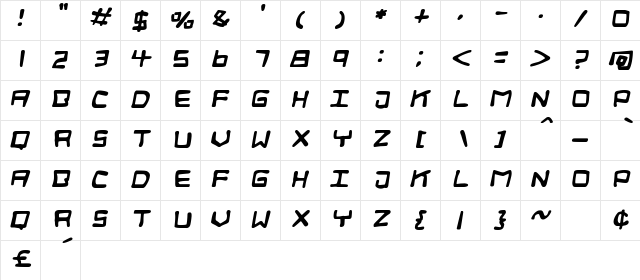
Digital Squiggle Italic
| Designer | Joseph Dawson |
Design Context for Digital Squiggle Typeface
Digital Squiggle channels digital-age aesthetics through its sharp, structured letterforms — ideal for brands that want to signal innovation. Its italic angle brings a sense of urgency and motion to the letterforms.